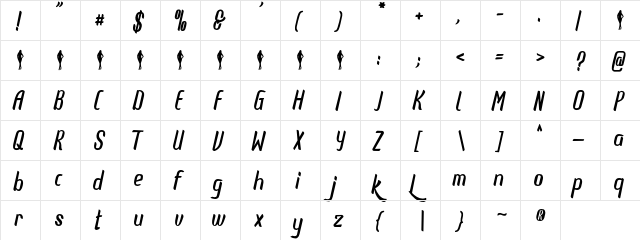
Roxeline Regular
| Designer | Aghiel Agus Alfian |
Design Context for Roxeline Typeface
Roxeline offers clean, dependable letterforms without strong stylistic allegiance, making it a practical choice for designers who need flexibility.